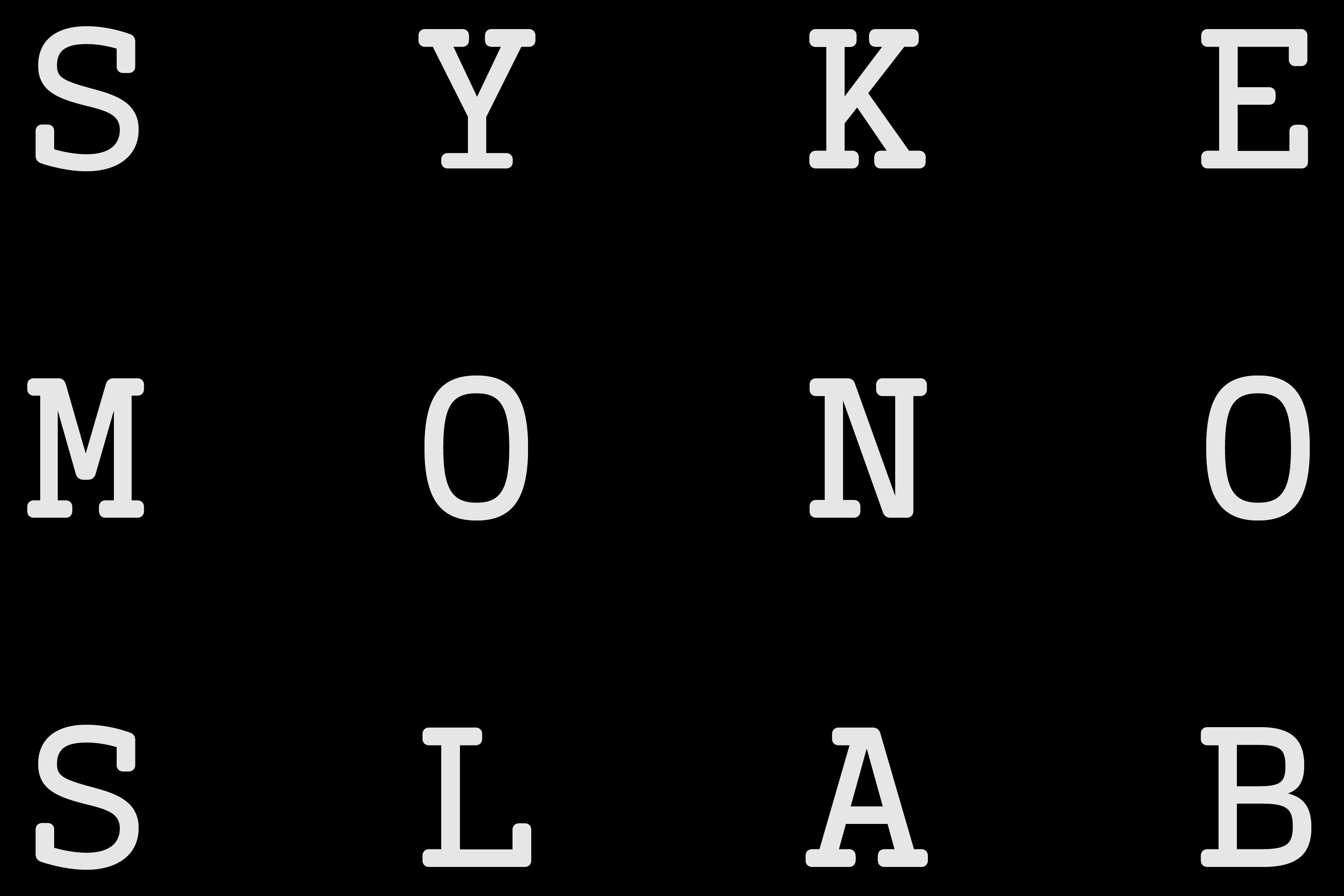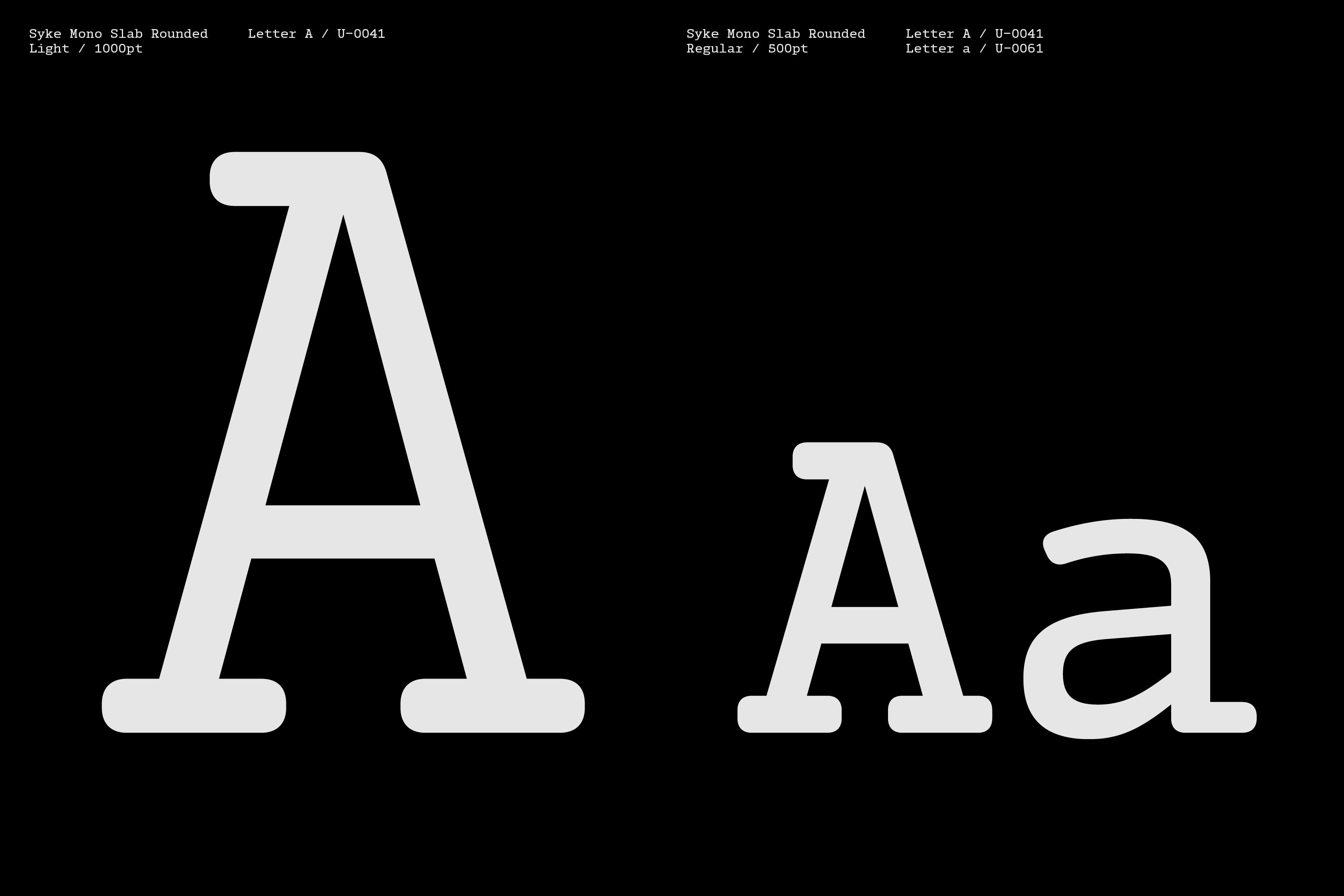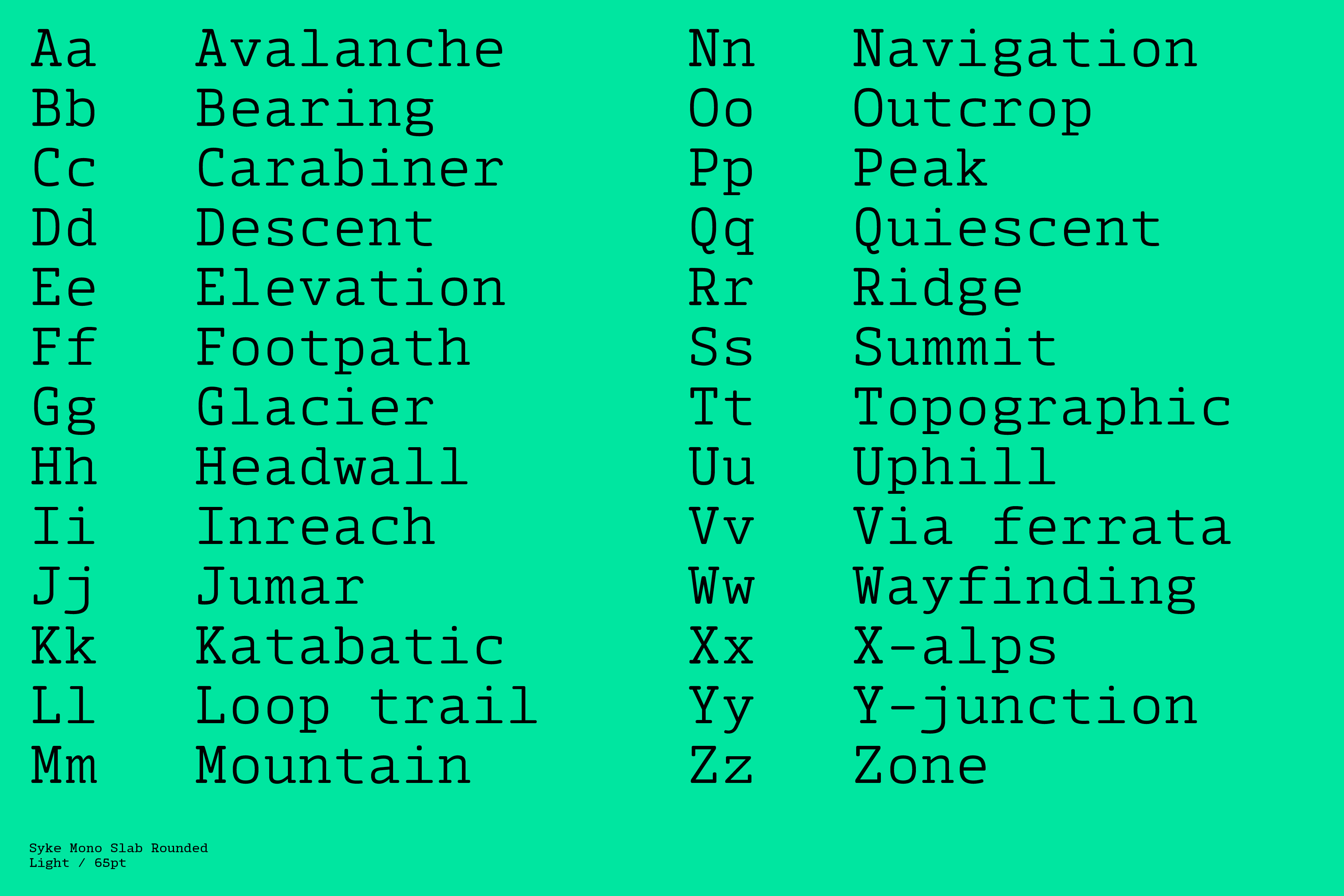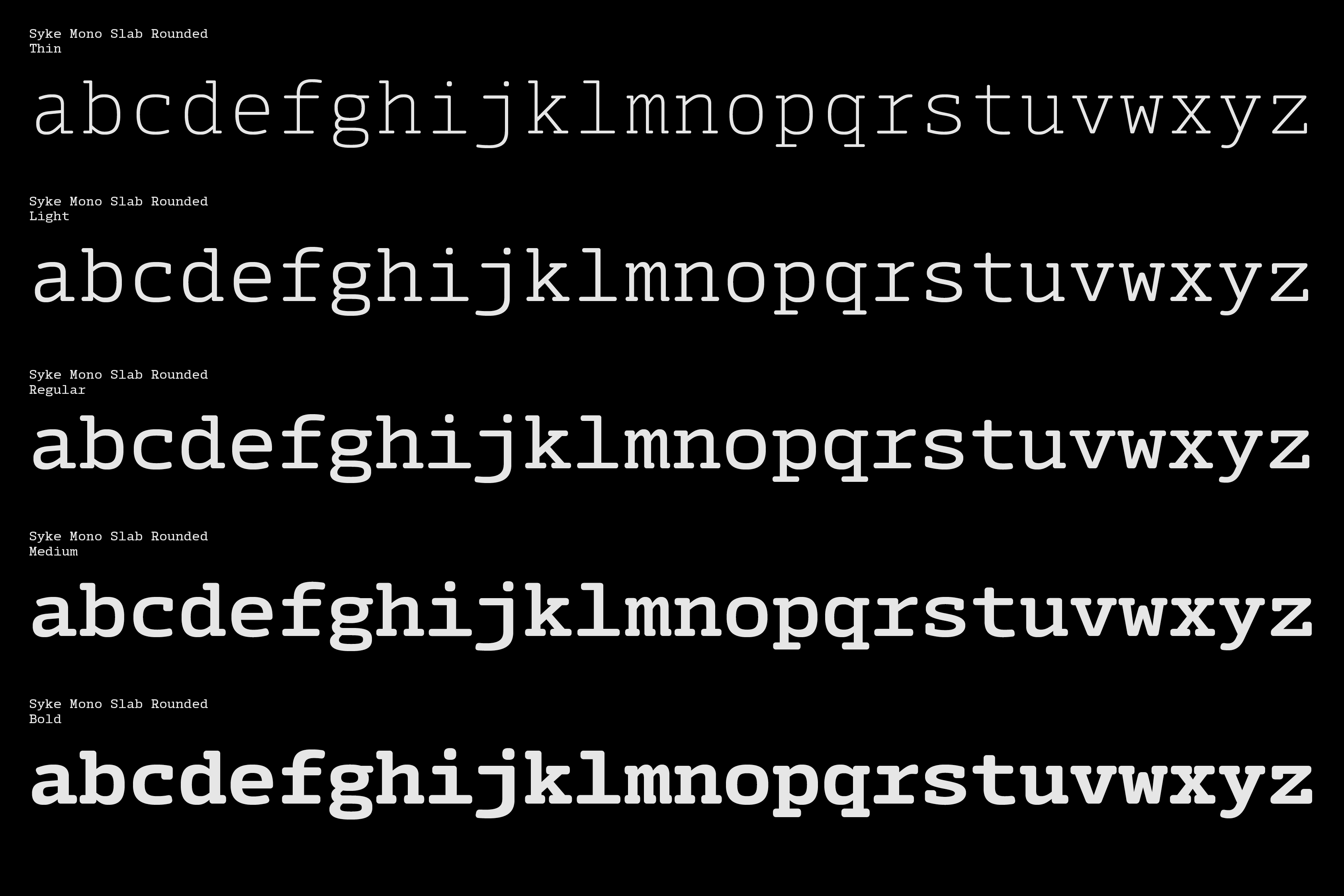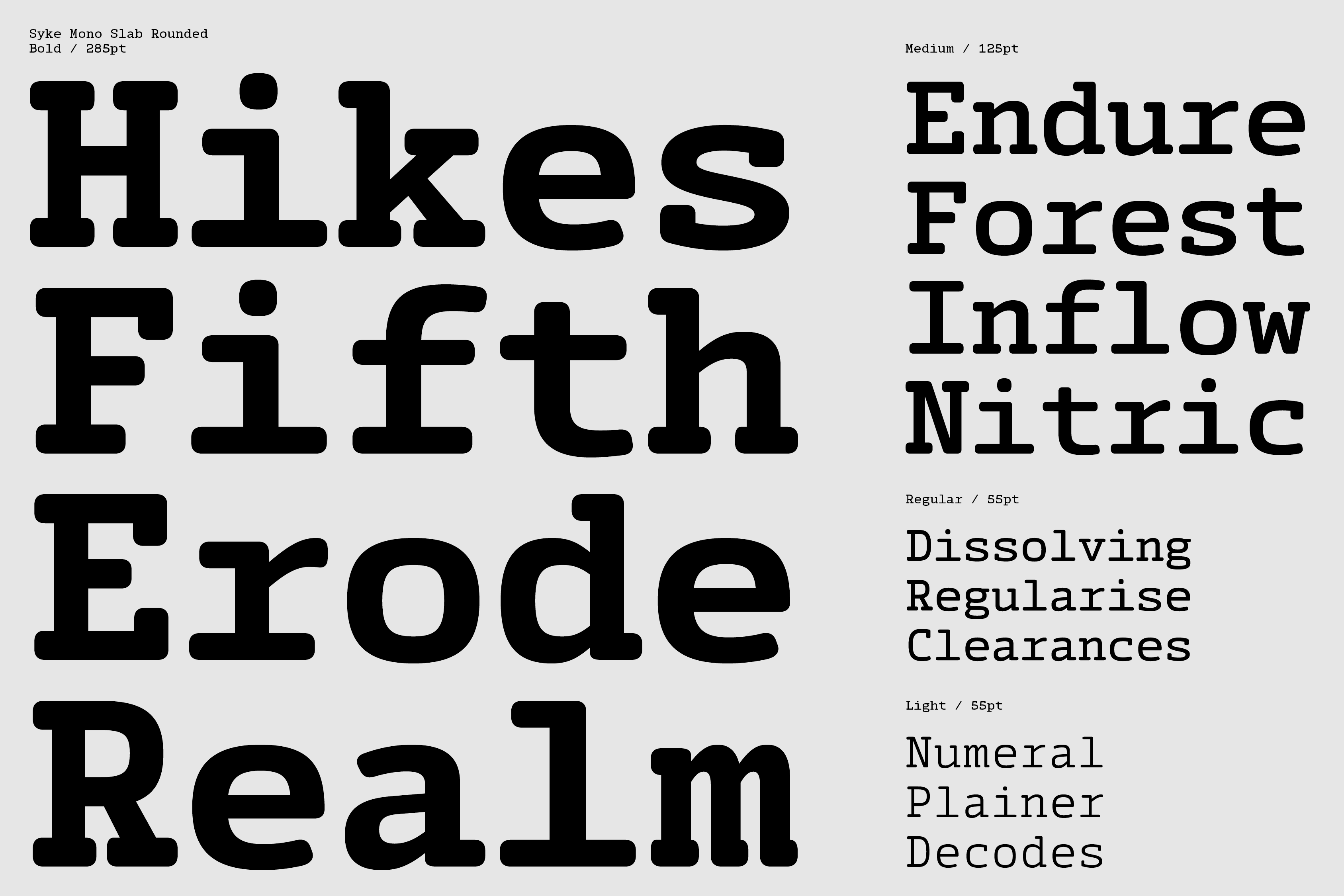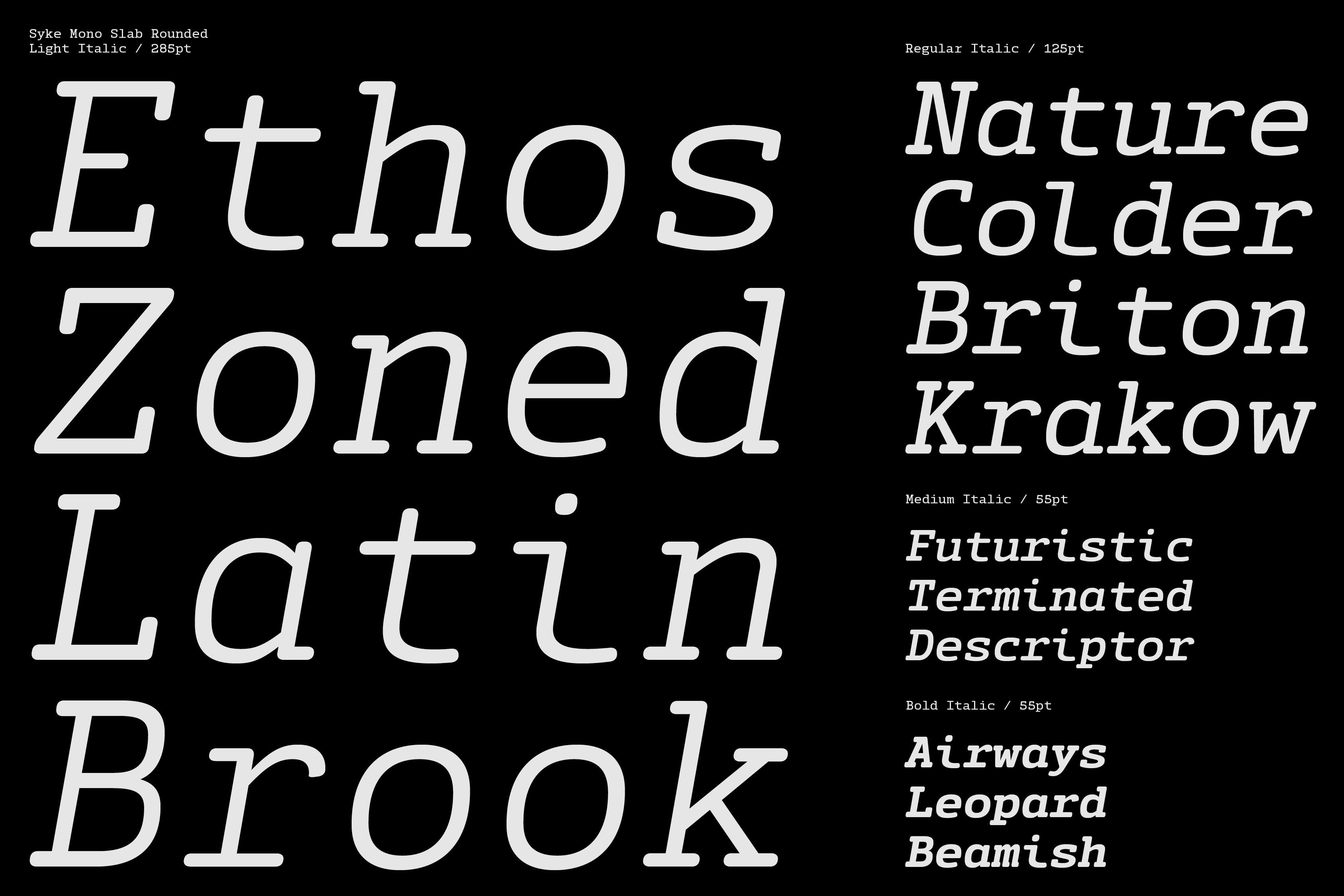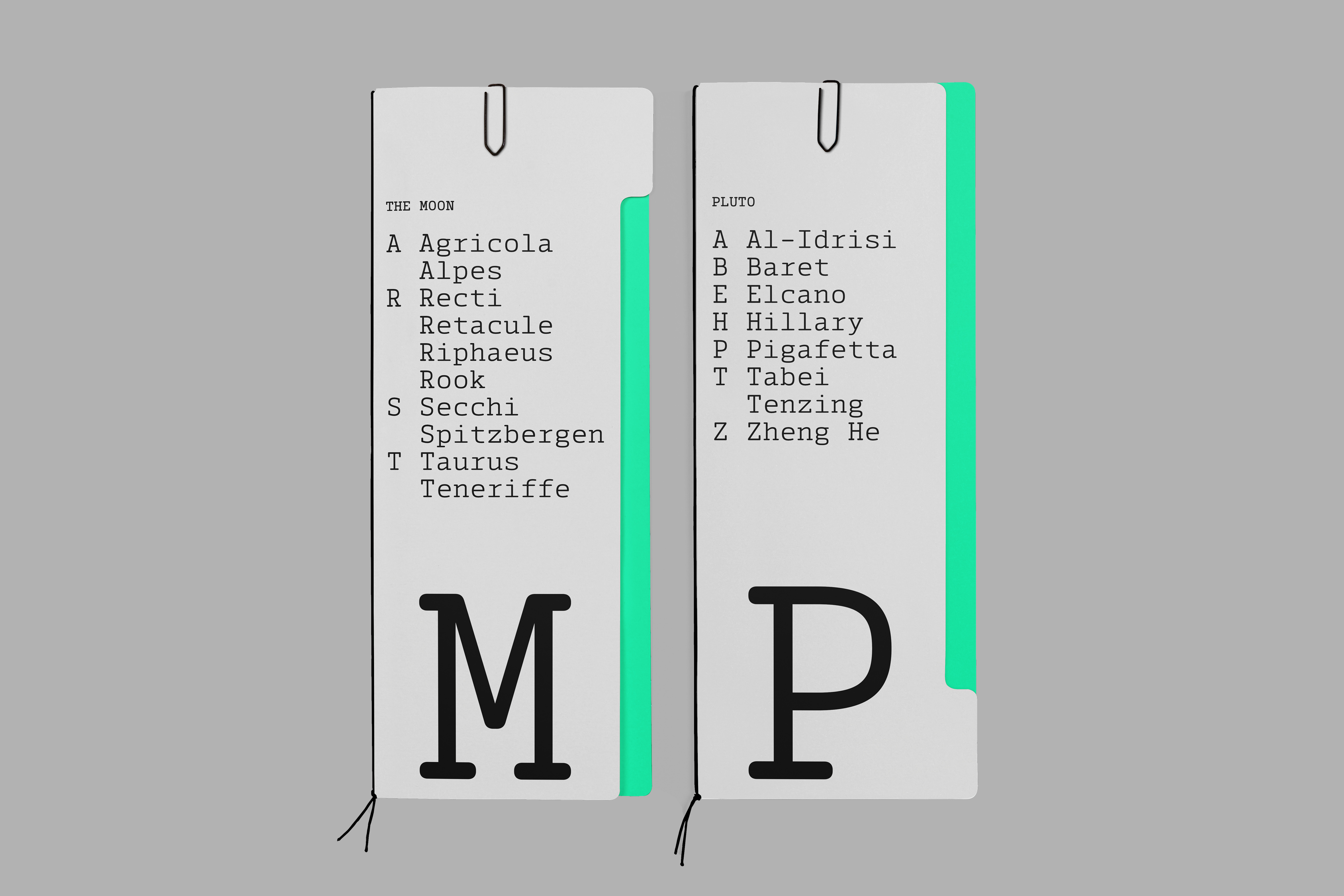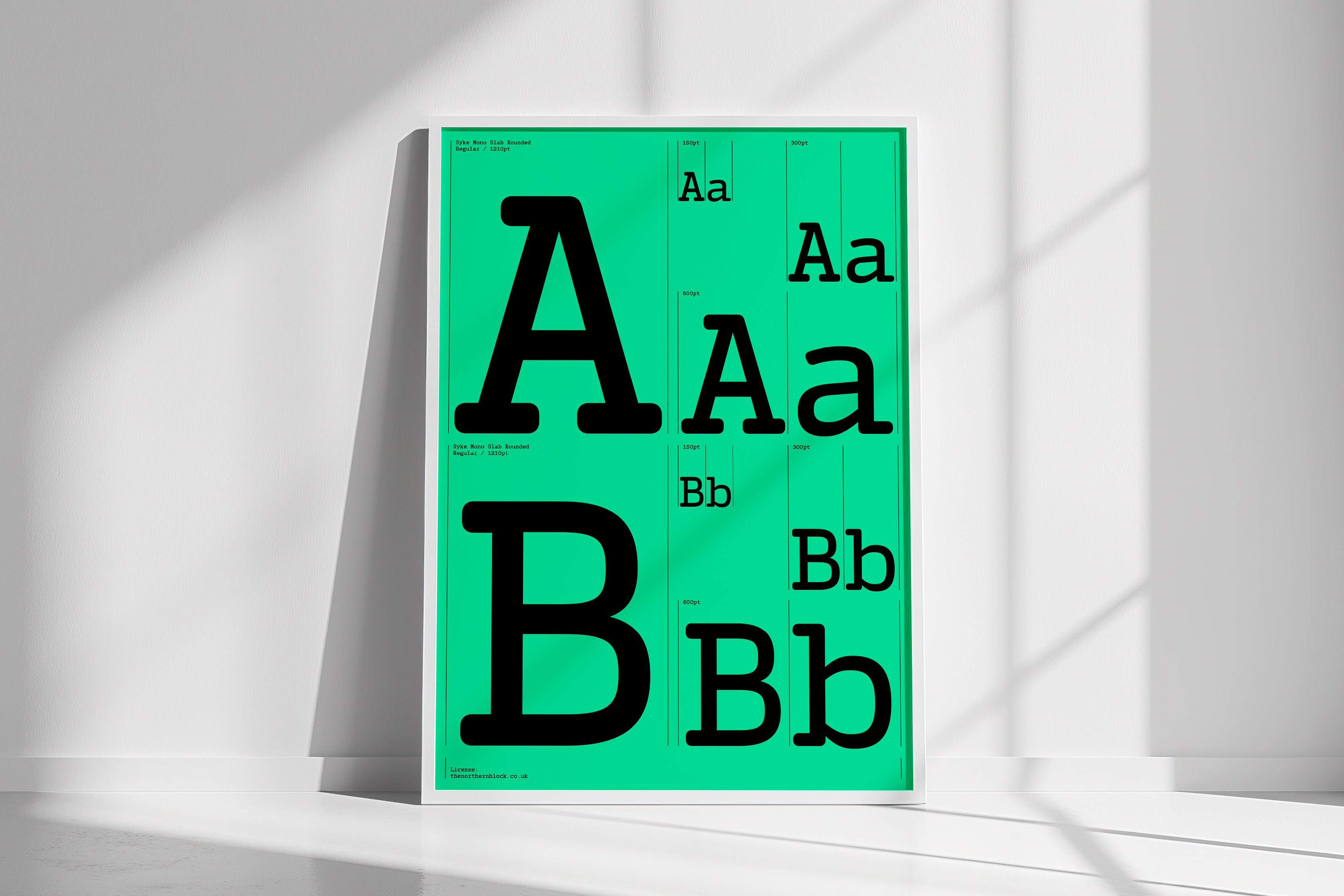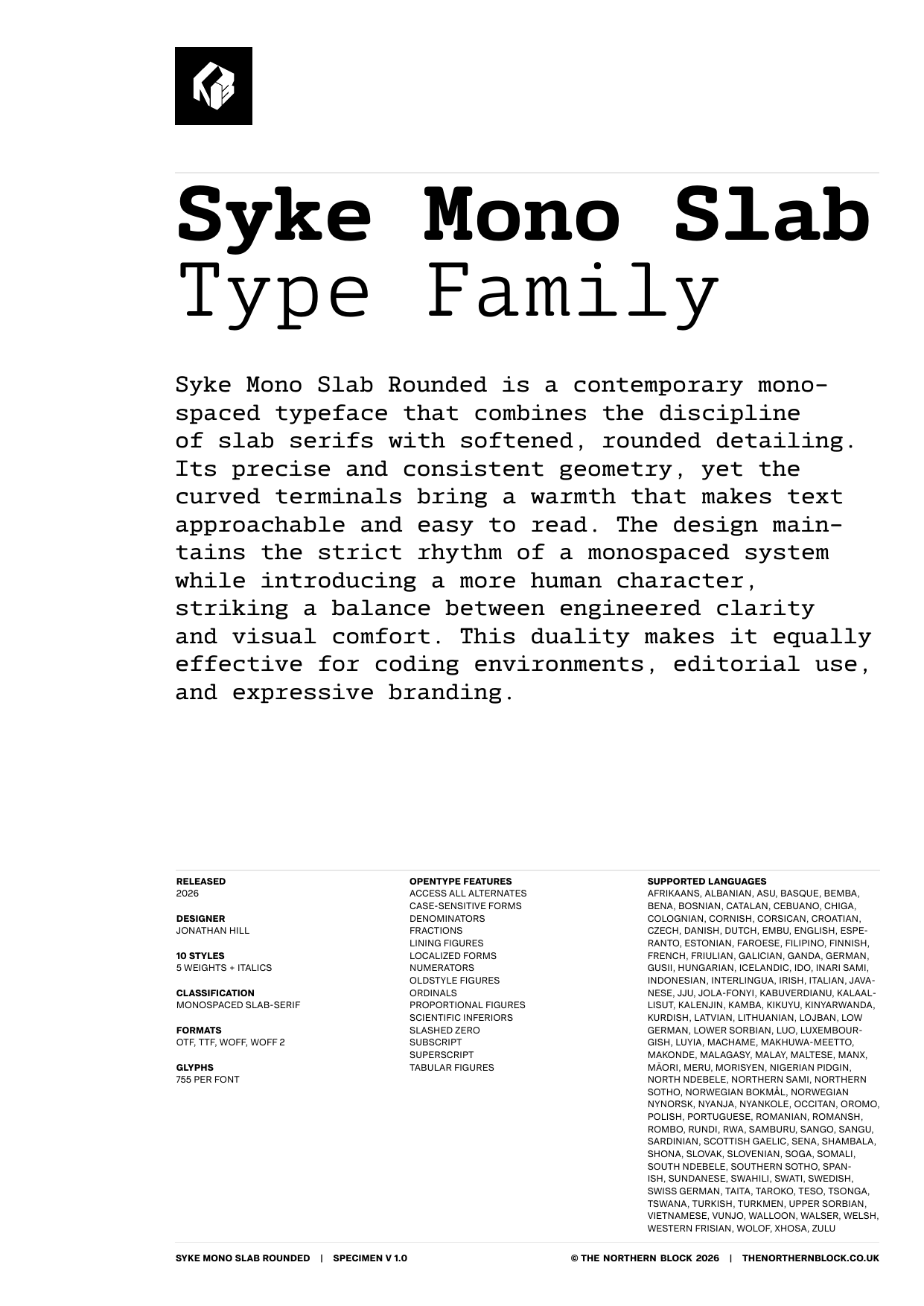
Syke Mono Slab Rounded
Syke Mono Slab Rounded is a contemporary monospaced typeface that combines the discipline of slab serifs with softened, rounded detailing. Its precise and consistent geometry, yet the curved terminals bring a warmth that makes text approachable and easy to read. The design maintains the strict rhythm of a monospaced system while introducing a more human character, striking a balance between engineered clarity and visual comfort. This duality makes it equally effective for coding environments, editorial use, and expressive branding.
The family includes five weights plus italics, and 755 characters per style. Practical details include stylistic alternates for lowercase a (two styles), g, i, l, r, ten numeral variations, fractions, case-sensitive punctuation, slashed zero, and localised forms.